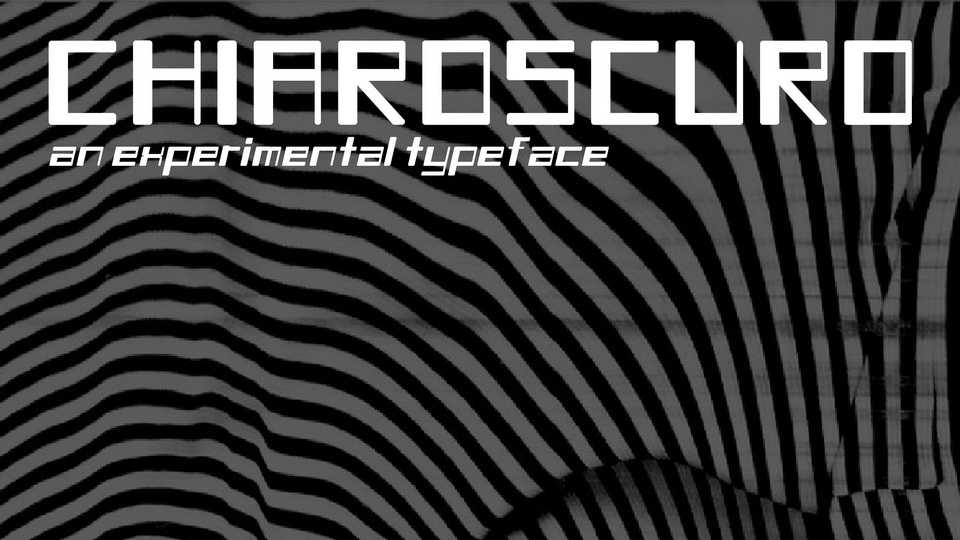
Download Chiaroscuro typeface, an experimental geometric font family of 20 styles. Chiaroscuro can be used almost everywhere, from heading to logotype to body copy, depending upon the designer’s choice.
Designer: Naman Arora